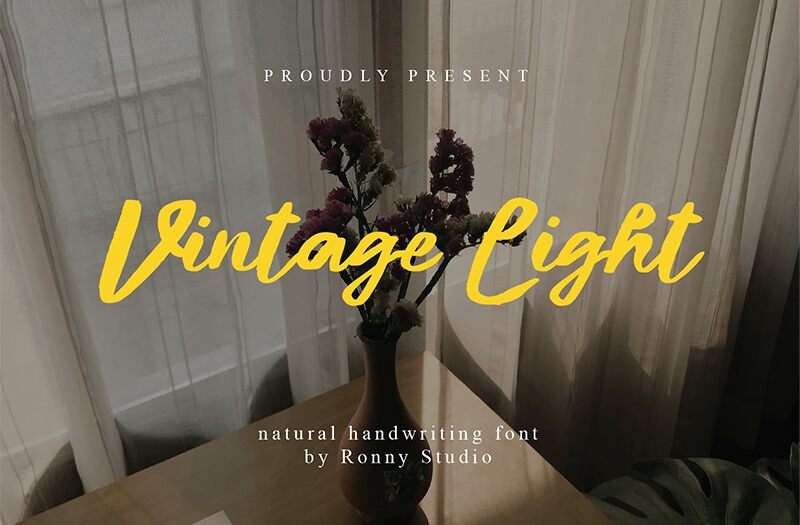
Vintage Light font by Ronny Studio is a free handwritten font that seamlessly blends modern elegance with organic flair. Designed to evoke a lively and dynamic visual experience, this stylish typeface brings a relaxed and fluid tone to any project. Each letter carries a sense of expressive individuality, making it a versatile choice for various design endeavors.
Perfect for logo design, Vintage Light is equally suitable for packaging, invitations, business cards, posters, and typography posters. Its fashionable appearance can also enhance social media graphics, event announcements, brochures, websites, and stationery. Its organic yet modern feel makes it adaptable to almost any context.